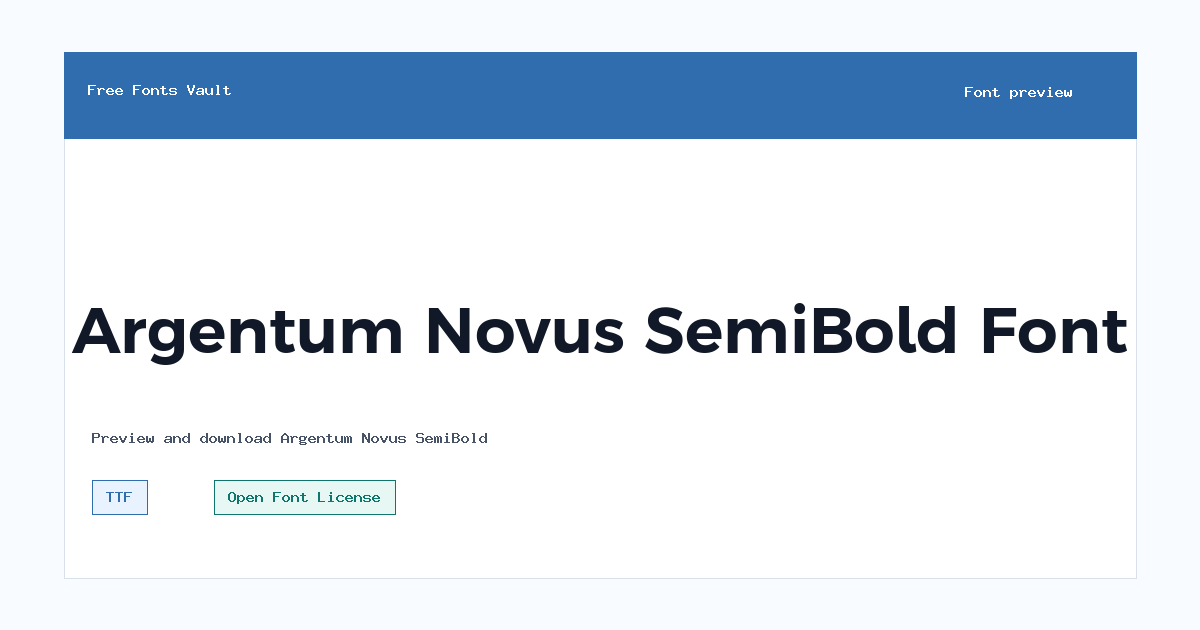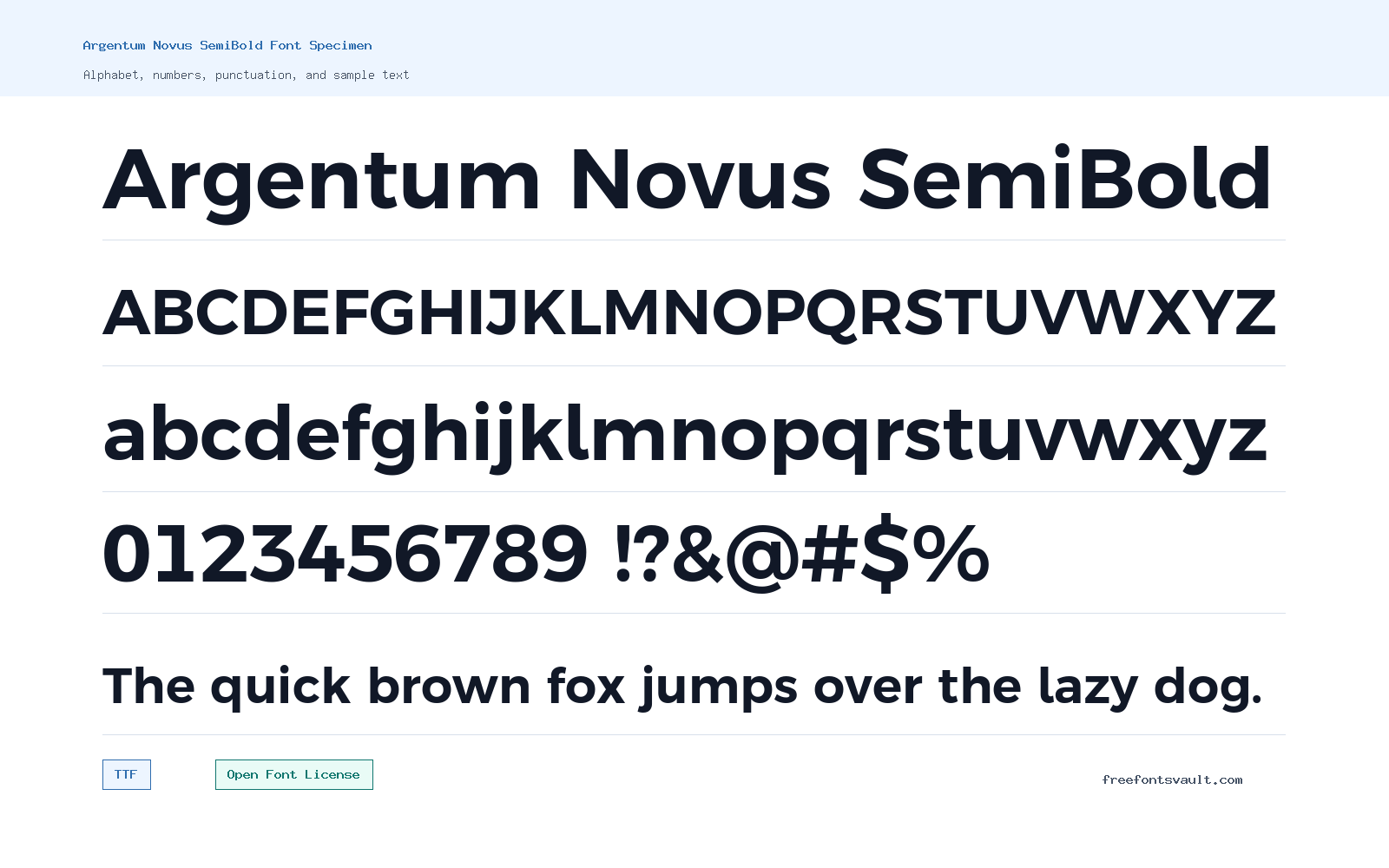
Argentum Novus SemiBold
- Designer Julieta Ulanovsky (font) & Cristiano Sobral (main changes)
Argentum Novus SemiBold is a structured sans-serif weight that gives a heading more presence while keeping the basic word shape practical and easy to scan. This page is for the mapped semi-bold file, not a generic name-only directory entry. Use the preview with an actual title, navigation label, or product name, because the same weight can feel balanced in a short line and considerably darker in a wrapped phrase.
How Argentum Novus SemiBold reads
The semi-bold drawing builds a firm texture from even stems and controlled curves. That makes it useful when a standard regular weight looks too quiet but a black display face would overpower the layout. Compare repeated letters, numerals, and close pairs at the final width. The goal is to retain a clean, regular rhythm while making the hierarchy visible without relying on effects or excessive tracking.
Argentum Novus SemiBold can support editorial subheads, product labels, cards, and technical-looking brand systems. Pair it with a lighter text face or a simple serif when you need a contrast in voice. It should not replace thoughtful spacing: even a sturdy sans-serif needs a real-size check before it becomes a small-screen interface component.
Test a compact heading, a line of digits, and a label with punctuation. Reduce the size gradually and inspect whether the medium-dark texture remains open. If it appears too dense, use a lighter companion or increase line spacing.
Questions about Argentum Novus SemiBold
When should I use Argentum Novus SemiBold?
Use it when a heading or label needs more visual weight than a regular sans serif without becoming a heavy display lockup.
Is it suitable for long paragraphs?
Test a regular or lighter text style for extended reading; semi-bold is usually more useful for hierarchy.